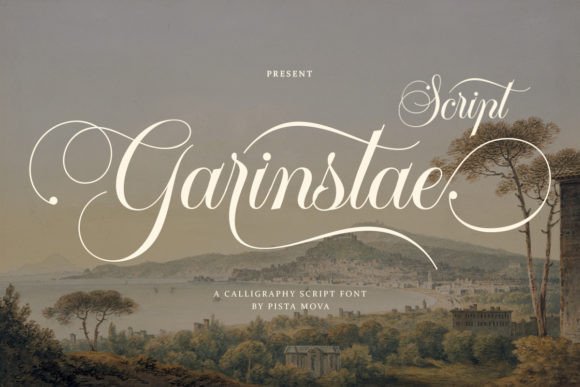
Introducing Garinstae Script Font, the ultimate choice for all your design needs! Created by the talented Pista Mova, this modern and classic handwritten calligraphy font is the perfect addition to elevate your projects.
With its soft and elegant strokes, Garinstae Script is guaranteed to catch the eye and leave a lasting impression. Whether you're designing logos, printed quotes, invitations, cards, product packaging, headers, or anything else you can imagine, this font is a game-changer.
One of the standout features of Garinstae Script is its versatility. It allows you to unleash your creativity and create custom dynamic text. By simply turning on the Alternative Styles, Swashes, and binders in Photoshop, Adobe Illustrator, or Adobe InDesign, you can transform your regular characters into breathtaking alternate characters. Imagine having the power to bring your text to life with the layout of your dreams!
But that's not all - Garinstae Script goes above and beyond with its extensive glyph collection. From punctuation to numbers and even multilingual support, this font has got you covered. No matter the language or special characters you need, Garinstae Script has them all.
When it comes to marketing your products or services, the right font can make all the difference. Garinstae Script, with its captivating and emotional appeal, will effortlessly captivate your audience and leave them wanting more. Its unique charm will add a touch of elegance and sophistication to any project, making it perfect for Easter baskets, spring-themed designs, and beyond.
Stand out from the crowd with Garinstae Script Font, the best font for Easter baskets and beyond. Let your imagination run wild and watch as your designs come to life with this stunning script font. Elevate your brand and leave a lasting impression on your customers with this must-have font in your toolkit.